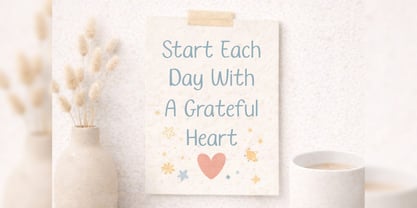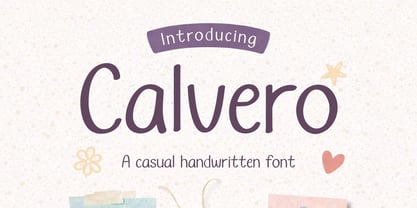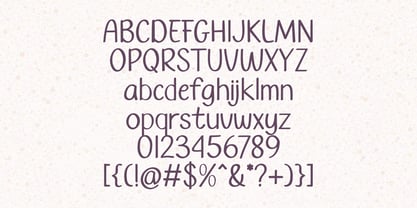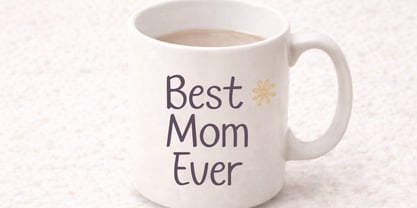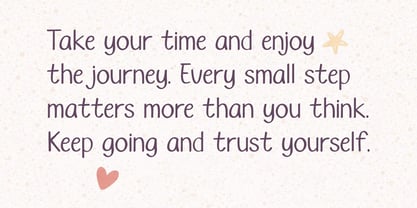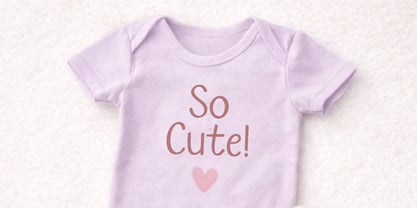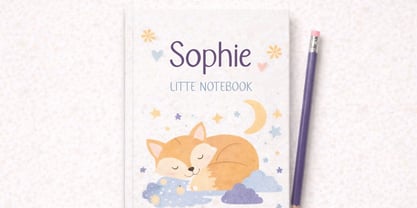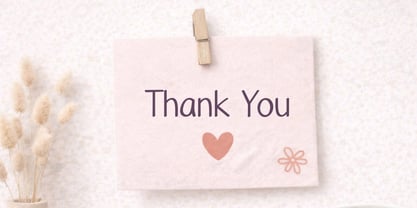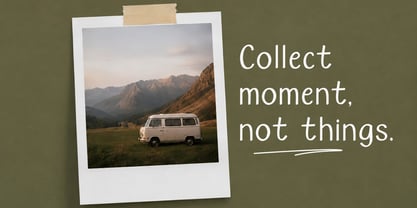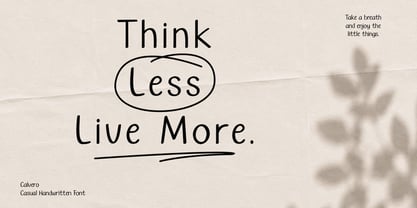
Calvero Reguler
The Calvero Reguler Font Family was designed by Michael Everson and published by Qiubare Studio. Calvero Reguler contains 1 styles. More about this family
Calvero is a casual handwritten typeface characterized by clean strokes, natural letterforms, and a friendly personality. This font delivers a relaxed and authentic appearance while ensuring excellent readability across both print and digital media. Whether you're designing a minimalist brand identity, social media graphics, product packaging, greeting cards, posters, or editorial layouts, Calvero provides a versatile handwritten style that feels modern and approachable. Its balanced proportions make it ideal for headlines, short paragraphs, logos, product labels, quotes, invitations, and everyday creative projects. Perfect for branding and logo design, social media content, packaging design, posters and flyers, quotes, invitations, greeting cards, lifestyle branding, editorial layouts, and website headers.